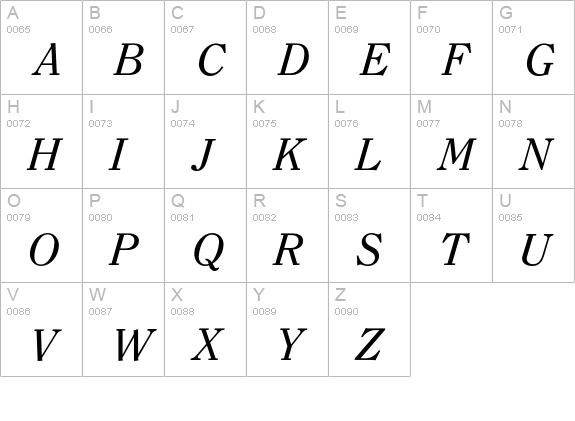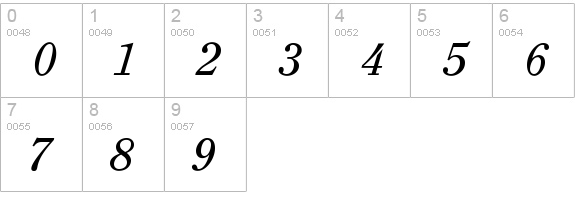
ClearfaceRegularItalic Font Details
ClearfaceRegularItalic is a beautifully crafted font that exudes elegance and sophistication. Its slanted italic style adds a touch of modernity to any design project. The smooth curves and precise lines of ClearfaceRegularItalic make it a versatile choice for various applications, from branding to editorial design. The best part? ClearfaceRegularItalic is available for free download at FontsMarket.com, where you can easily access this stunning font to elevate your projects to the next level. Don't miss out on the opportunity to enhance your designs with the timeless appeal of ClearfaceRegularItalic.